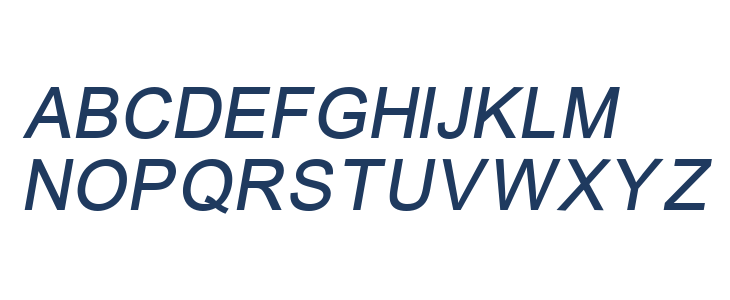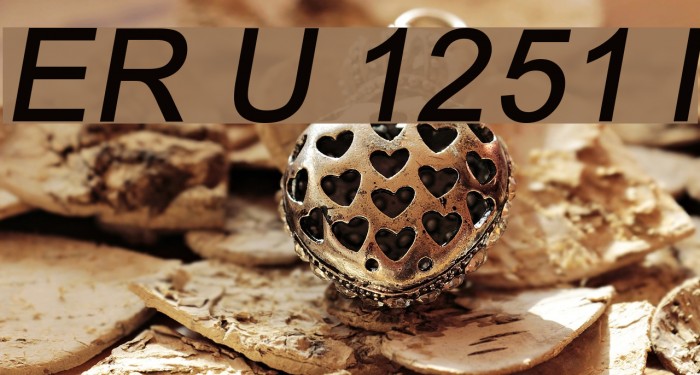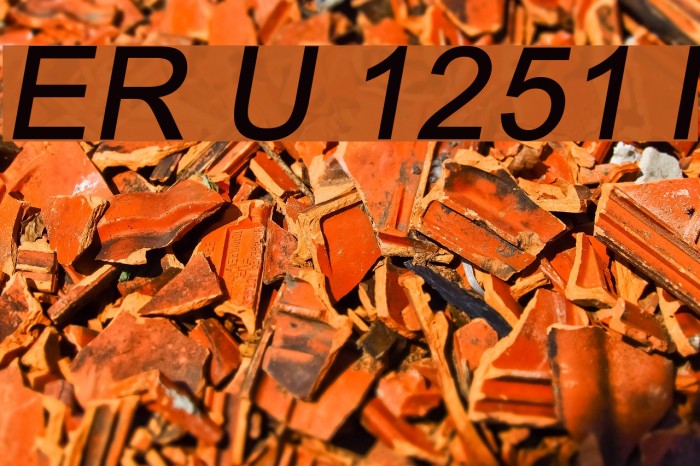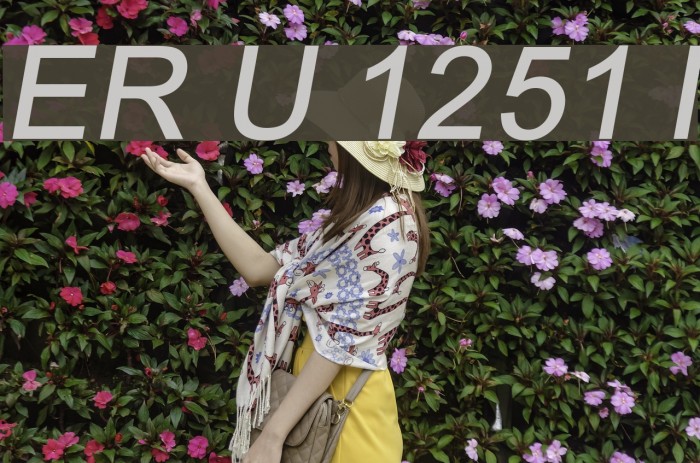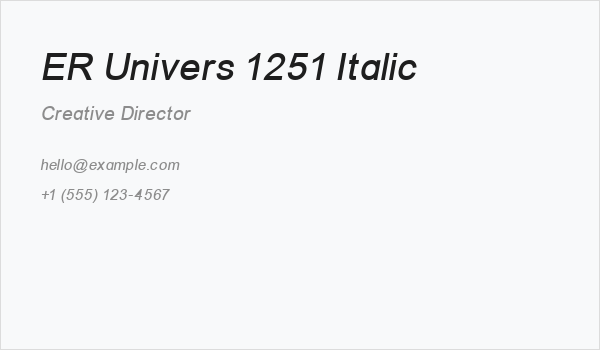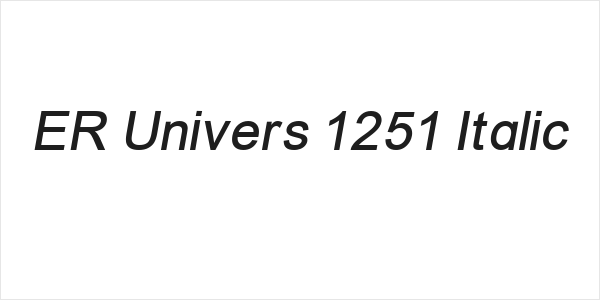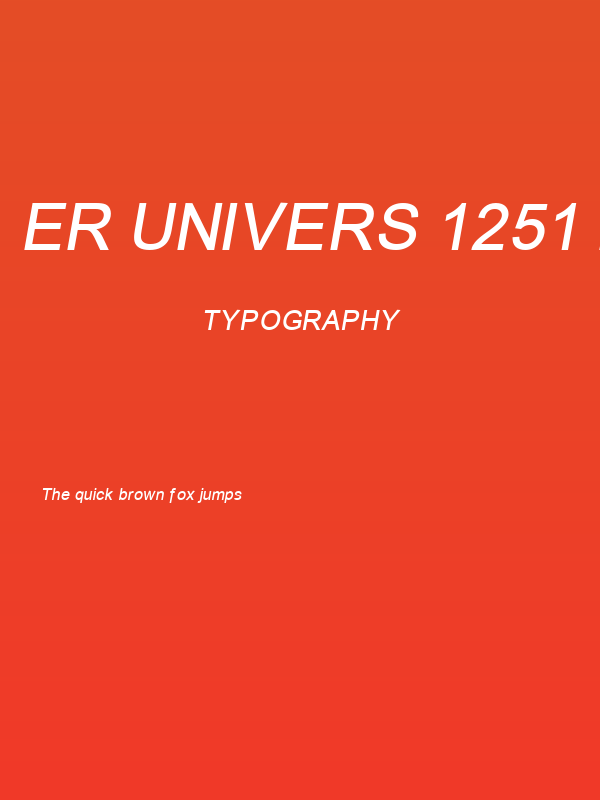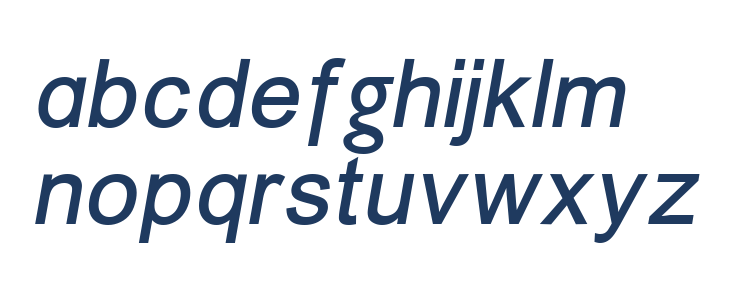
ER Univers 1251 Italic Font
ER Univers 1251 Italic Description
This font exhibits a clean and modern sans-serif style with a noticeable italic slant, giving it a dynamic and forward-moving appearance. The characters are well-proportioned, with a consistent stroke width that maintains readability across various sizes. The uppercase letters are bold and assertive, while the lowercase letters offer a softer, more approachable feel. The numerals are clear and distinct, making them suitable for both display and text settings. Special characters are well-integrated, ensuring versatility in different contexts. Overall, this font balances professionalism with a touch of elegance, making it suitable for a wide range of applications.
| Proposed Projects | Ideal for branding, advertising, and editorial design where a modern and professional look is desired. |